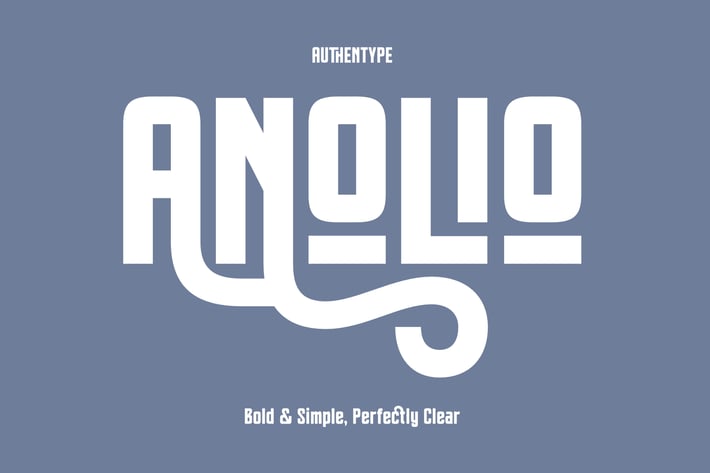
Anolio – Bold Simple Clear Font
Anolio – Bold, Simple and Perfectly Clear Font
Anolio is a modern sans-serif font designed for clarity and impact. With bold yet simple letterforms, this typeface ensures maximum readability while maintaining a sleek and contemporary look. Perfect for branding, headlines, posters, packaging, and digital content, Anolio brings versatility and style to any project.
PERFECT FOR:
Branding & Logos – Establish a strong and modern identity with clean, bold typography.
Headlines & Posters – Make an impact with eye-catching, highly readable text.
Packaging & Labels – Ensure clarity and sophistication in product designs.
Web & Digital Content – Enhance websites, social media graphics, and presentations with a sleek, contemporary style.
Editorial & Print – Ideal for magazines, brochures, and advertising materials that require a modern touch.
SPECIAL FEATURES
Ligatures
Includes carefully crafted ligatures for smooth connections (e.g., “ff,” “fi,” “tt,” and more), ensuring visual harmony in typography.
Swash
Yes, Qebyoda features stylized swashes on select letters, adding a touch of style to standout headers or logos.
Stylistic Sets
Offers alternative letterforms and creative variations for select characters, providing flexibility for unique and artistic designs.
Fully supports non-Latin characters and a variety of scripts,
This extensive language support, combined with stylistic versatility, makes Soncara perfect for global and diverse design projects
Two Alternate Styles
Unlock unique character variations for dynamic typography.
Anolio is the ultimate font choice for those seeking a balance between modern luxury and timeless beauty.